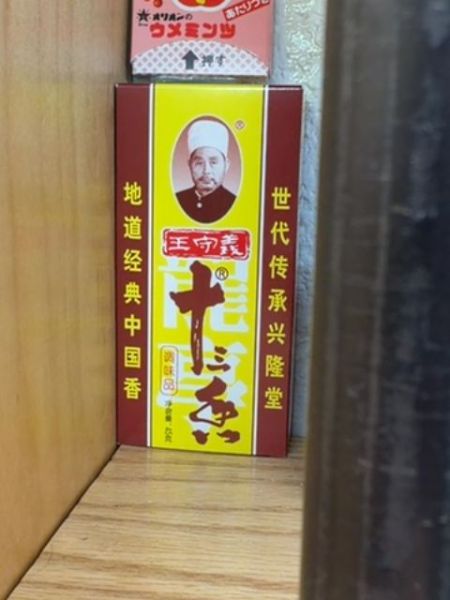
Kome Mints
Kome Mints are refreshing mints known for their distinctive flavor, designed to freshen breath and provide a quick burst of freshness.
Country of Origin
Japan
Typography
The typography on the packaging uses bold, sans-serif fonts for easy readability, combined with calligraphic traditional characters that add an element of cultural authenticity. The mix of vertical and horizontal text orientations adds visual interest and enhances the classic and historical feel of the product.
Packaging
The packaging features a bold and contrasting color scheme with a bright yellow center and darker red borders. In the middle, there is an oval portrait of a historic figure, which gives a traditional feel, while the vertical text complements the classic aesthetic.
Facts
- Kome Mints are popular for their long-lasting flavor.
- The packaging design has remained mostly unchanged for decades.
- They often feature images of traditional or historical figures for branding.